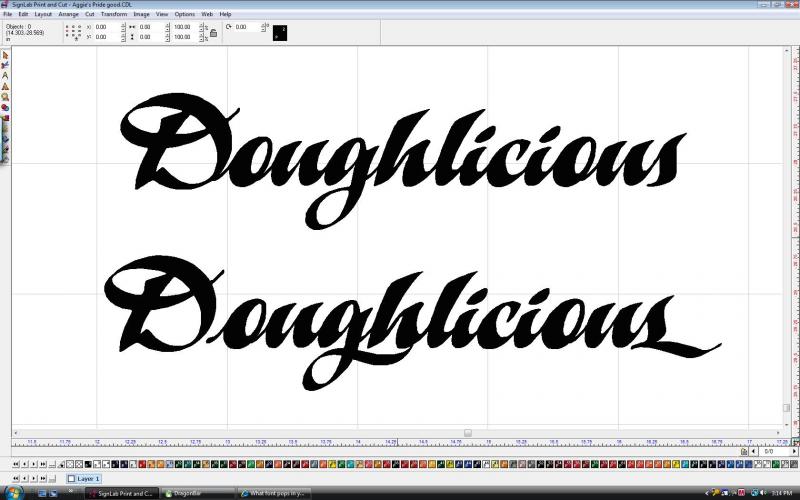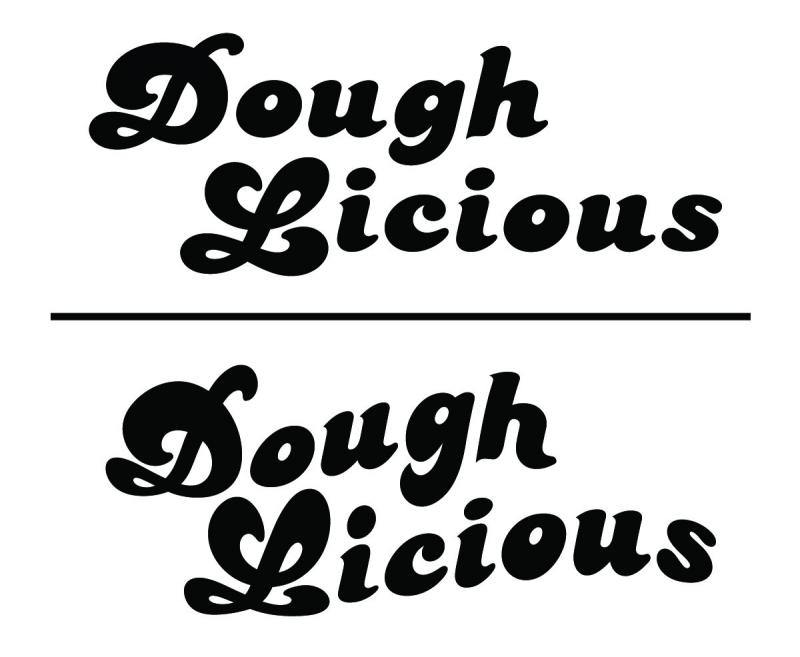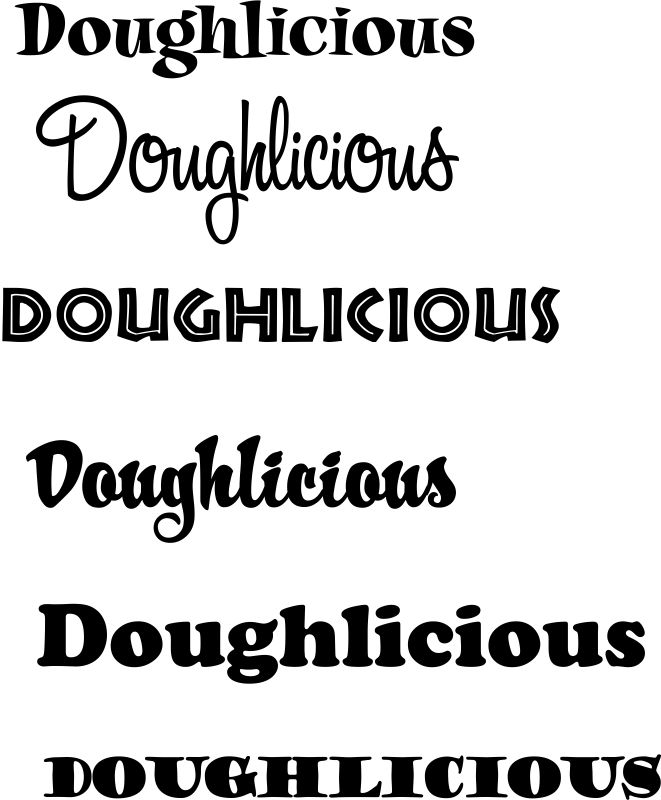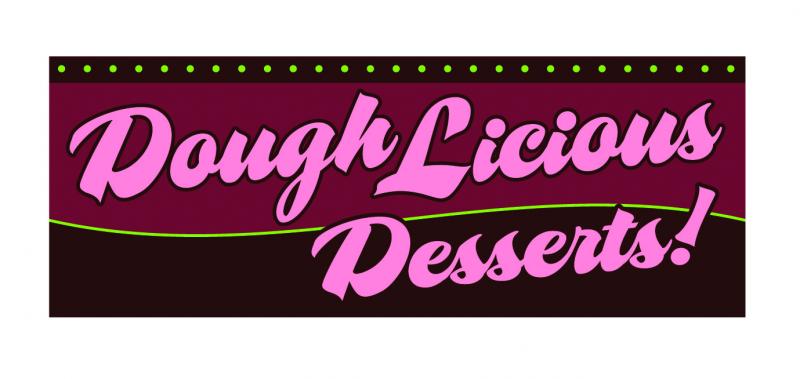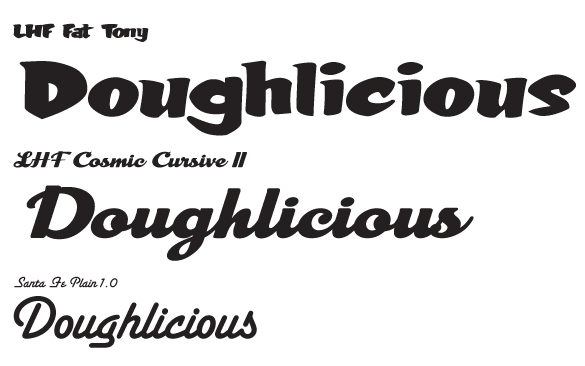
What font pops in your head for this?
I'm having a hard time picking a font for a logo/sign. It's for a bakery called "Doughlicious". I'm thinking something fat, scripty and fun, kind of like Candice, but I don't like that one.
Anything come to mind? Not asking for anyone to go to any trouble, but if something pops into your brain, please share! I'm going crazy on this one!
Hmmm... Cooper is fat, but I'm really wanting a script.
Murray Hill is nice but too thin and fancy for this.
I'll have to look up Puff Daddy.
Here's what I did with Candice, but like I said, I really don't like it. But it is kind of the type of look I'm going for.
How about something like flash with a "Doughy" ouline? None of my scripts are legible enough with a word that long.:Big Laugh
Here's where I am so far. Not finished yet - it needs some desserts or something. Any suggestions?
Is there any chance you can split the word like this Dough-Licious. I think it reads much easier than one long strange word....
Never mind. Your image wasn't there when I posted mine. The split helps.
Here's the first draft but the scale of the sign changed so I decided to change the layout totally to the one in the above post.
I'm afraid she is going to insist on the girl image. But I can't fit her in the new layout; at least not large enough to see what she is. I was thinking about a plate of different desserts on the above layout? I don't know! I'm stuck!